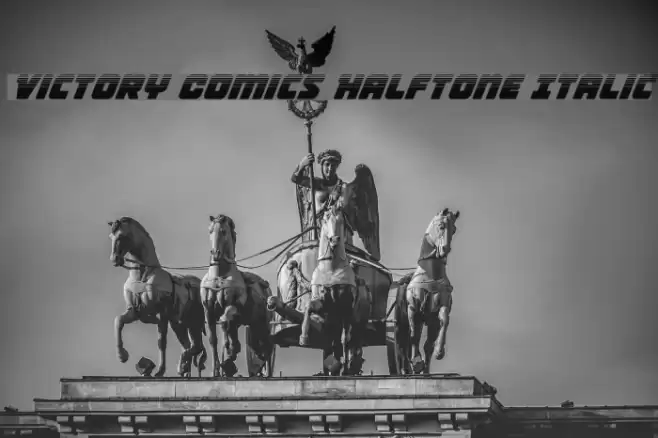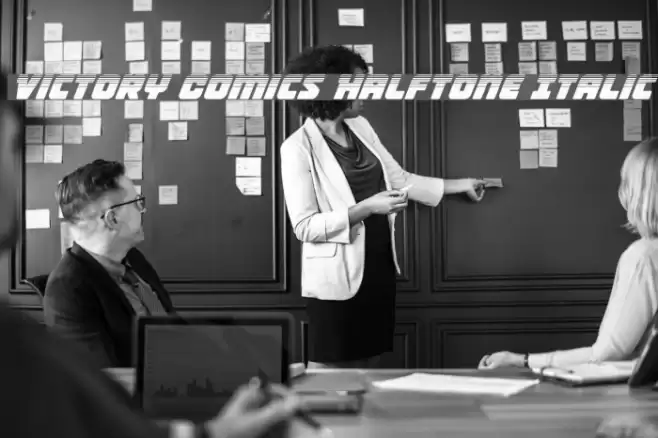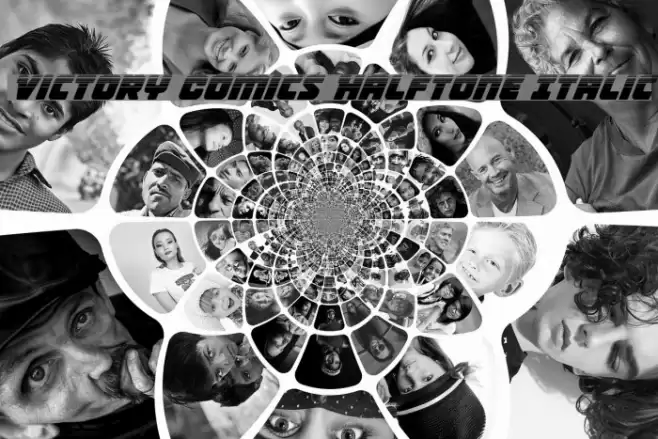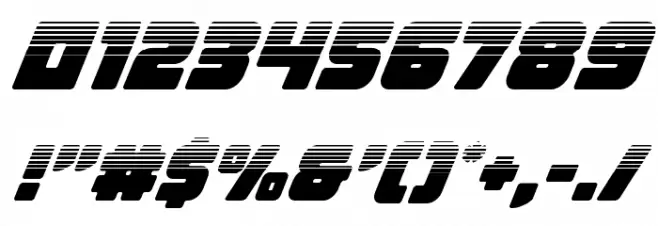
Victory Comics Halftone Italic Font
Victory Comics Halftone Italic Description
This font features a bold, dynamic style with a halftone effect that gives it a retro, comic book feel. The characters are italicized, adding a sense of motion and energy. The uppercase and lowercase letters maintain a consistent width, creating a uniform appearance. The numbers and special characters follow the same design principles, ensuring cohesion across all elements. The halftone lines add texture and depth, making it ideal for eye-catching designs.
A bold, italicized font with a retro halftone comic book style from Uncategorized fonts.
- Proposed Projects: Perfect for comic book covers, retro-themed posters, video game graphics, and dynamic logo designs.
- Overall Style: Retro, Comic